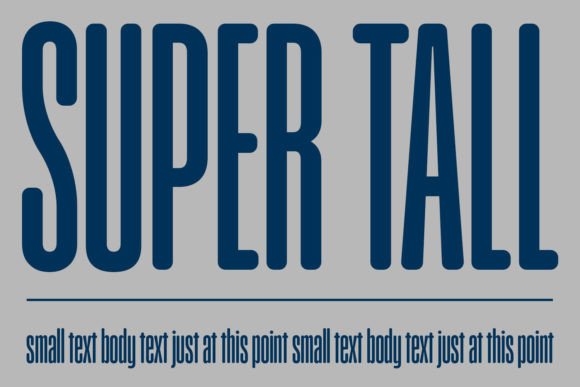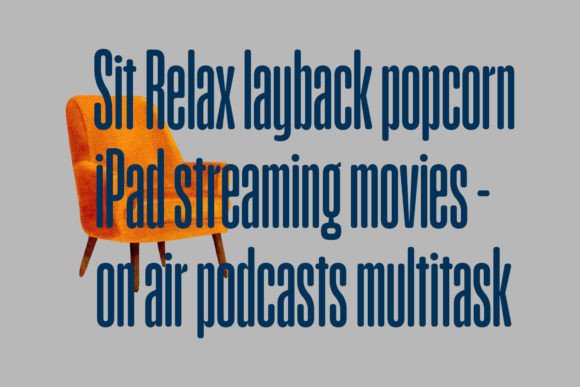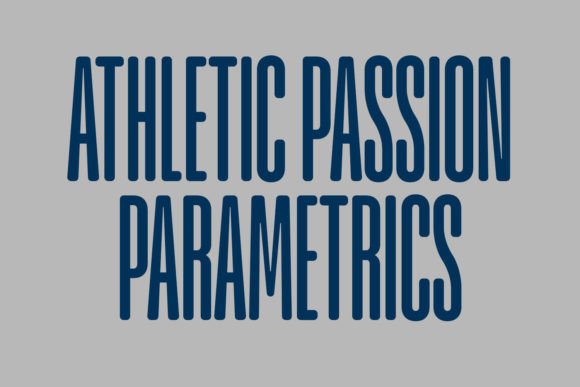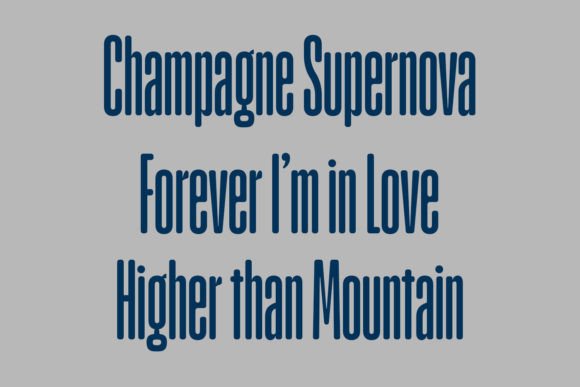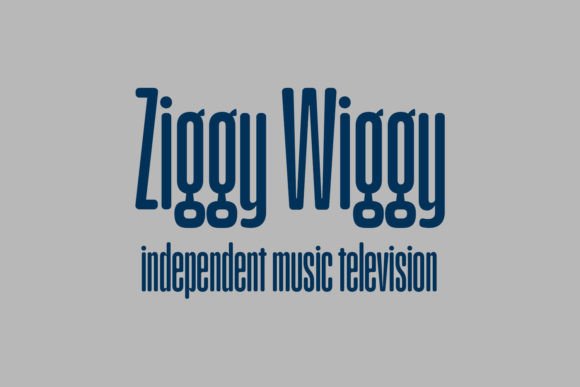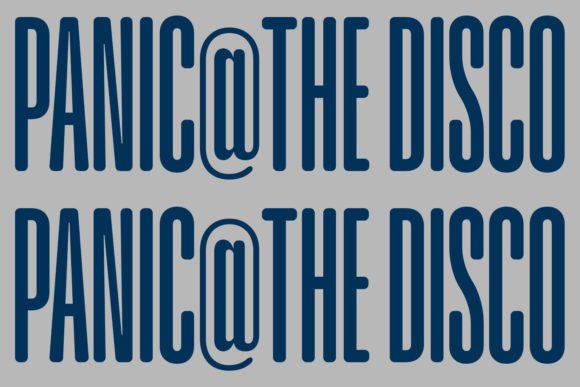
Introduction to Galexias Font
Have you ever been working on a creative project and suddenly, the perfect font pops into your mind? For designers, this moment is pure magic. You envision the font, the colors, and the overall aesthetic, and it all comes together in a beautiful, cohesive piece. This is exactly what Galexias Font offers – a modern and fun sans serif font that can elevate your design to the next level.
Key Features of Galexias Font
- High-quality, unique design ideal for creative projects and artistic expressions.
Honest Review: Galexias Font
I recently had the chance to work with the Galexias Font, and I must say it’s been a game-changer for my creative projects. The high-quality design and transparent background make it perfect for any design resource.
Here are some of the things I love about the Galexias Font:
- ✨ The font is incredibly versatile and can be used for a wide range of creative projects, from logos to brochures.
- ✨ The font is also incredibly easy to customize, making it perfect for designers who want to add a personal touch to their work.
- ⚠️ Some of the characters may not be as detailed as I would have liked.
Overall, I’m thoroughly impressed with the Galexias Font. It’s a high-quality design resource that’s perfect for any creative project. With a little tweaking, I was able to make it work seamlessly in my designs. If you’re looking for a free font that can add some serious style to your work, I highly recommend giving Galexias Font a try.
Tips for Getting the Most Out of Galexias Font
Galexias Font is perfect for creating social media graphics, logos, and branding materials. Its unique design makes it stand out from other fonts, making it ideal for creative projects and design resources.